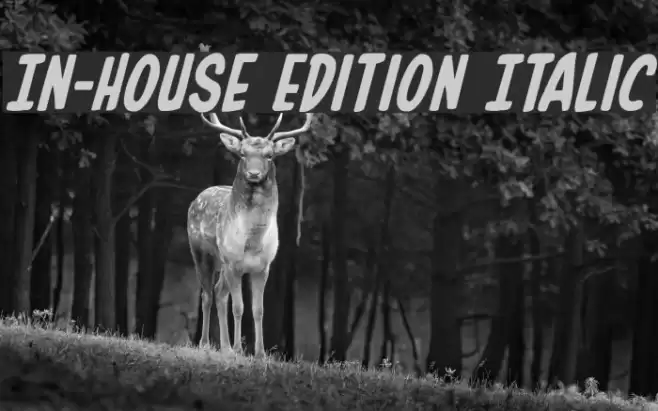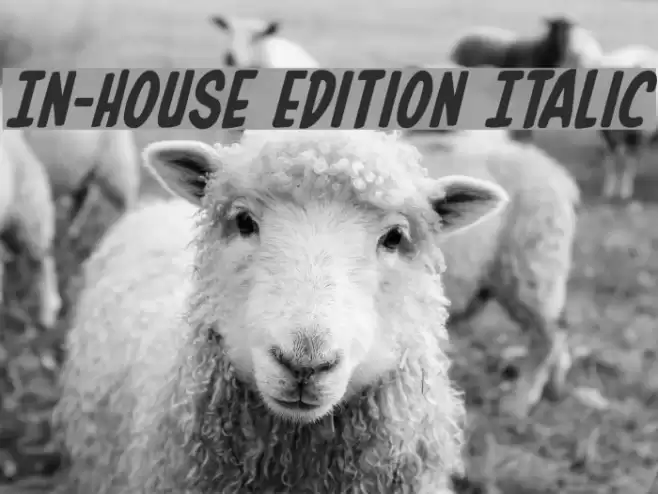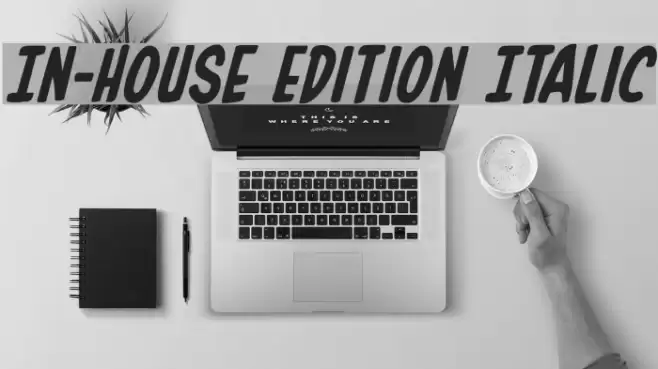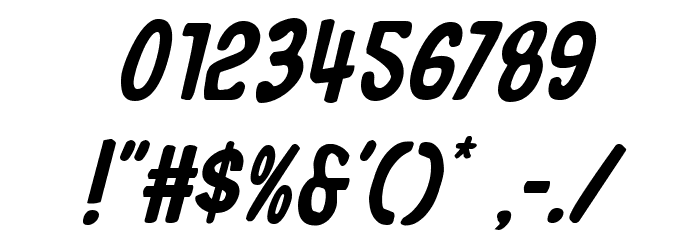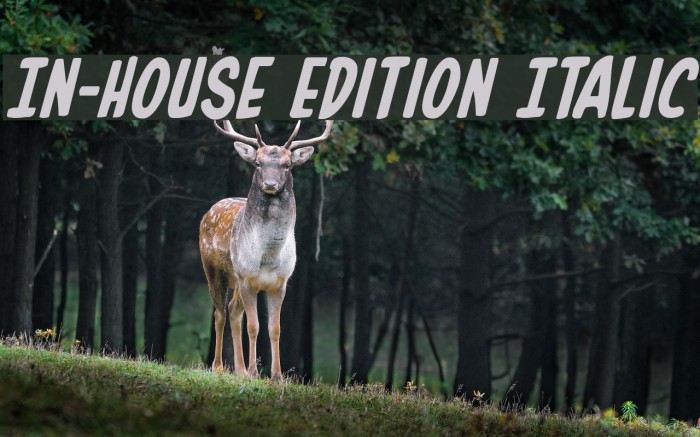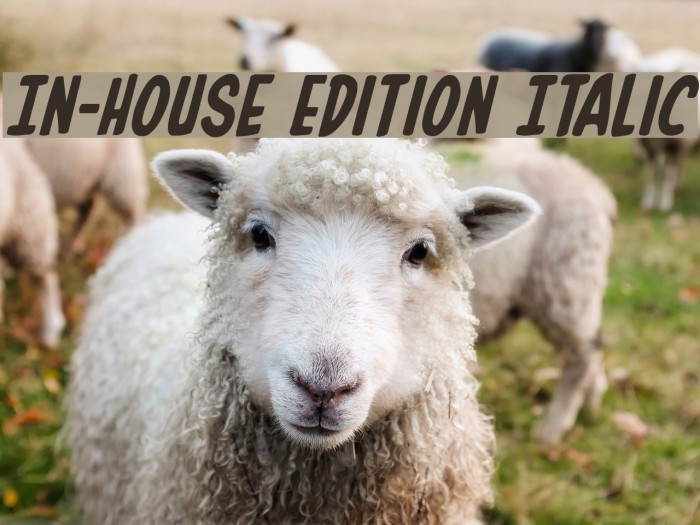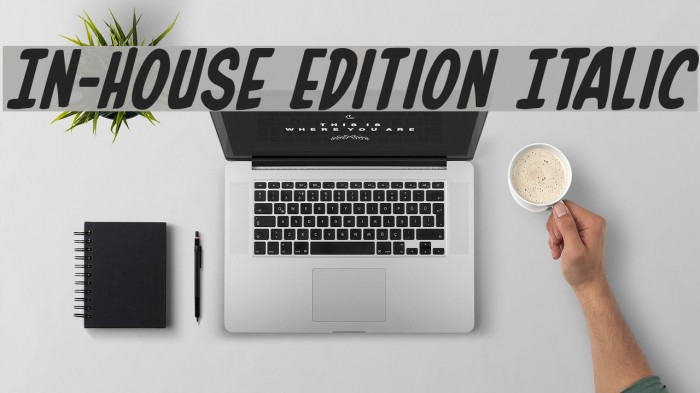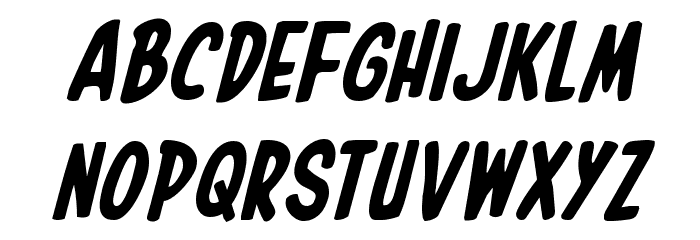
In-House Edition Italic Font
In-House Edition Italic Description
This font features a bold, italicized style with a playful and dynamic appearance. The letters are slightly slanted, giving a sense of motion and energy. The strokes are thick and consistent, providing a strong visual impact. The characters are well-rounded with smooth curves, contributing to a friendly and approachable look. The numbers and special characters maintain the same bold and italicized style, ensuring consistency across all elements. This font is suitable for projects that require a lively and engaging typeface.
A bold, italicized font with a playful and dynamic style from Comic fonts.
- Proposed Projects: Ideal for branding, posters, headlines, and any design requiring a bold and energetic typeface.